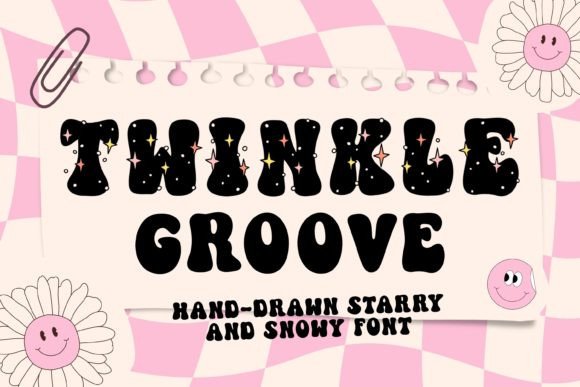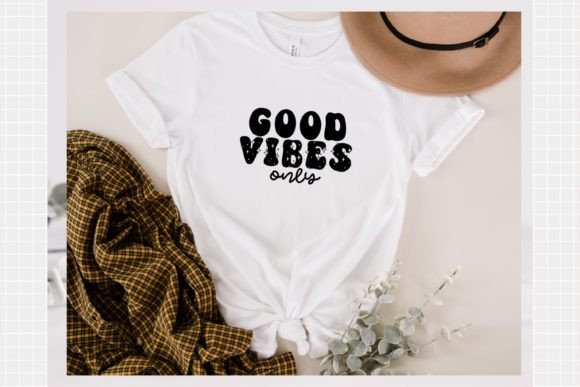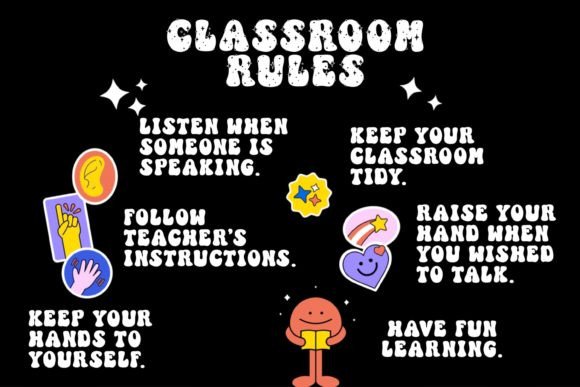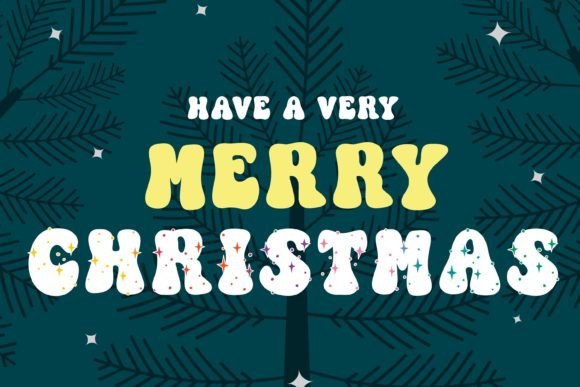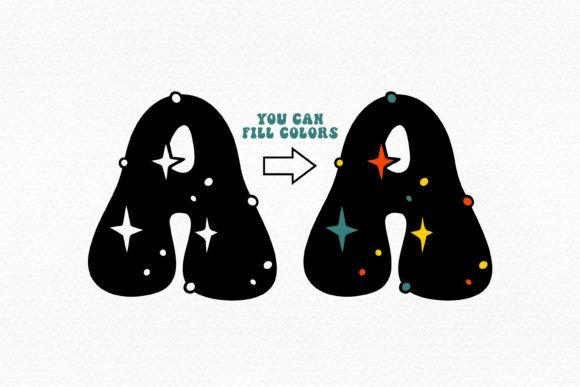
Twinkle Groove Font
Twinkle Groove is a fun, retro hand-drawn font with star sparkles and snow decorations. You can use this font in various projects – blog posts, logos, branding, digital planners, invitations, greeting cards, planners, photo albums, decorations, and much more.